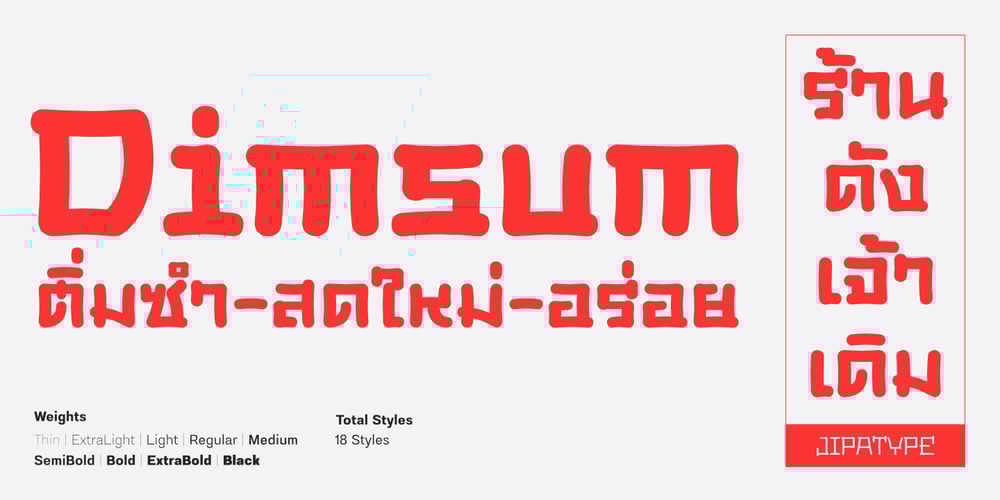
Dimsum Font Family was designed by Anupap Jaichumnan and published by Jipatype. Dimsum contains 18 styles and family package options. Dimsum is a display typeface that emulates casual Chinese handwriting. This versatile font supports Thai and Latin-1 characters, offering 18 styles ranging from Thin to Black weights.